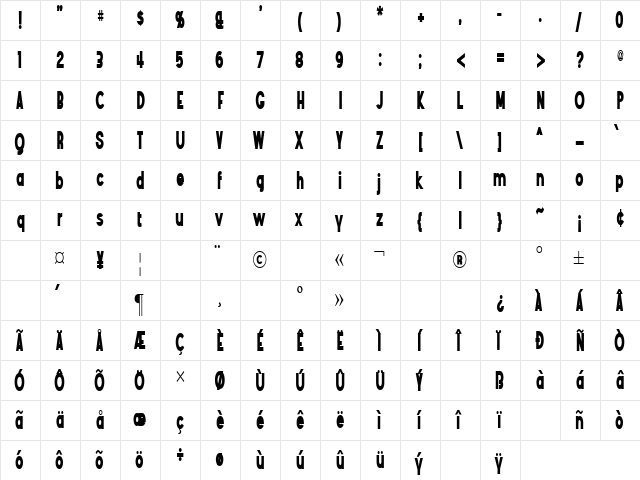
Angostura Black Regular
Design Context for Angostura Black Typeface
Angostura Black offers clean, dependable letterforms without strong stylistic allegiance, making it a practical choice for designers who need flexibility.
Pro Tip: Use Angostura Black in both headline and body roles to test its range before committing to a single application.